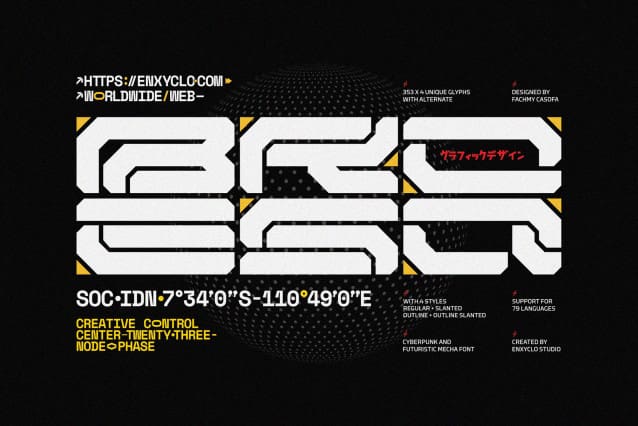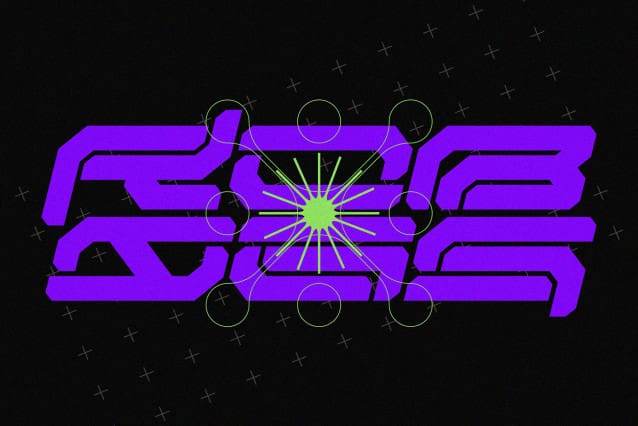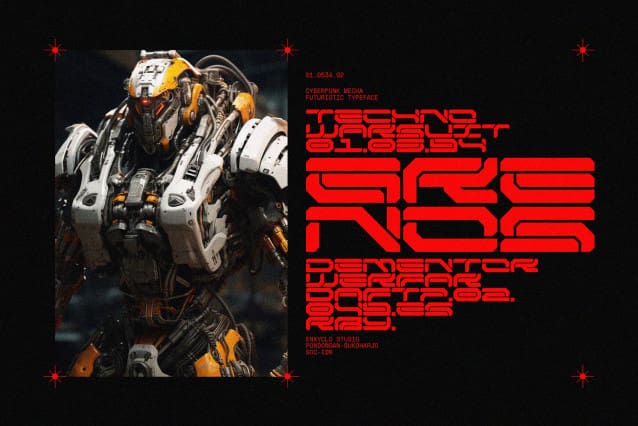
NCL Broesq Font
NCL BROESQ FONT is not your ordinary font; it’s a cyberpunk futuristic techno mecha font that takes your creativity to the next level. Its futuristic aesthetics bring a whole new dimension to your designs, making them stand out. Whether you’re working on a website, poster, logo, or any other project, this font adds that extra touch of innovation and sophistication.